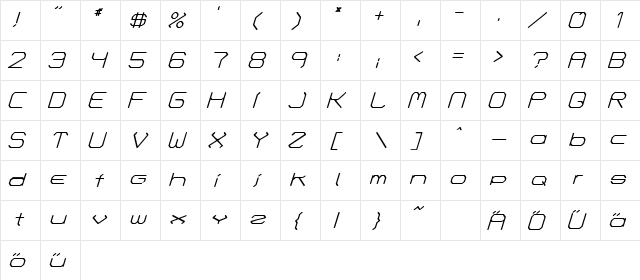
Fontmaker's Choice Italic
Design Context for Fontmaker's Choice Typeface
Fontmaker's Choice is a composed and adaptable typeface that performs quietly and consistently across a wide range of design contexts. Its italic angle brings a sense of urgency and motion to the letterforms.
Pro Tip: Use Fontmaker's Choice for emphasis, pull quotes, and subheadings where its slanted energy can add rhythm to the layout.